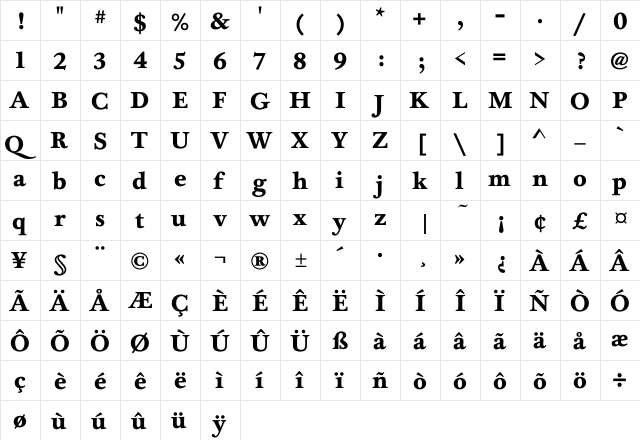
FoundryWilson Bold
Design Context for FoundryWilson Typeface
FoundryWilson offers clean, dependable letterforms without strong stylistic allegiance, making it a practical choice for designers who need flexibility. Its bold stroke weight gives it real presence on the page.